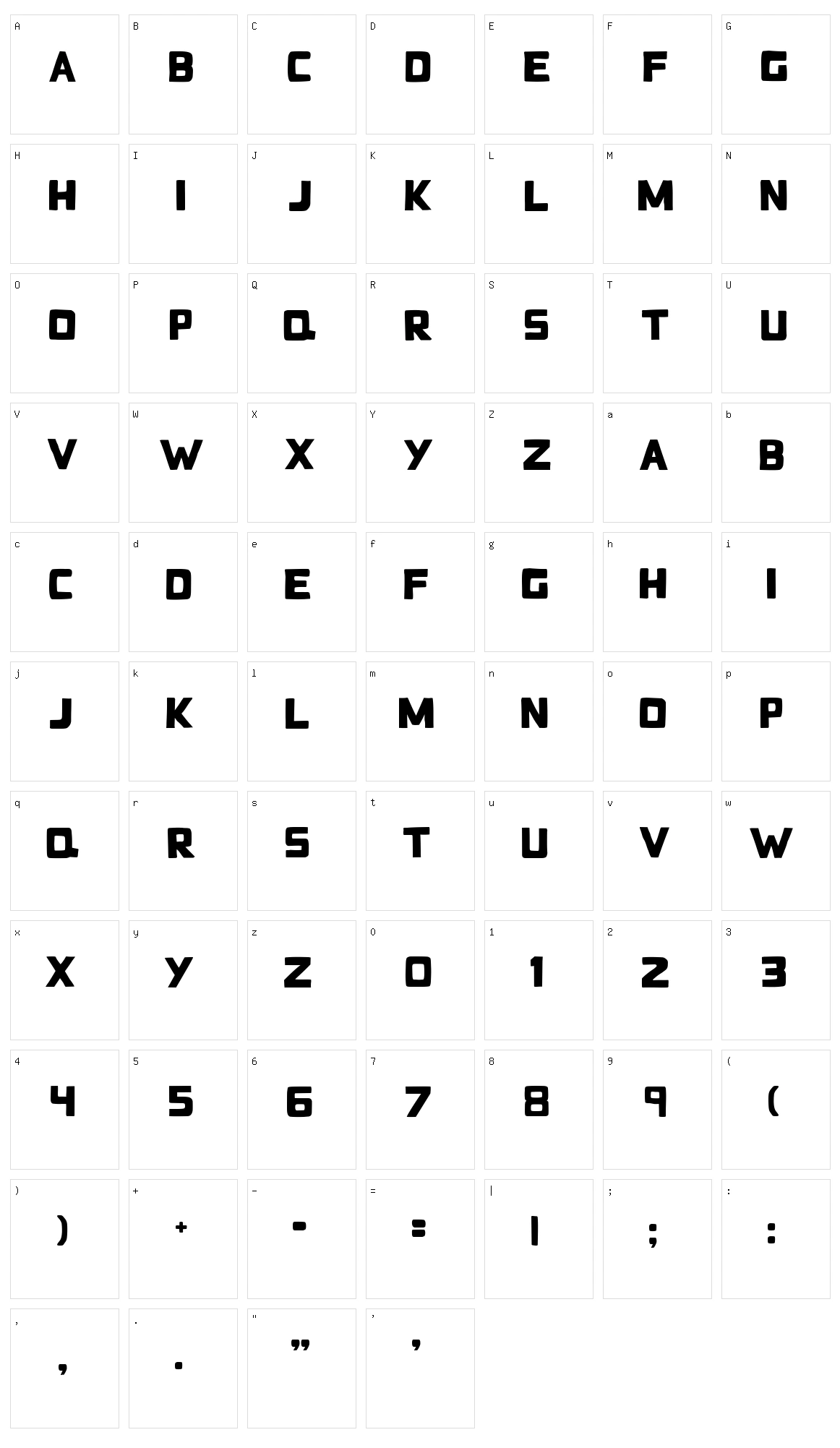
The free font Bad Blocks is carefully designed by Robert Cortez, showcasing a thoughtful balance of creativity and usability and falls under the Eroded font style. When you download the ZIP file, it contains only 12.43 KB of font files, making it lightweight and quick to download. Please review the license details below to understand permitted usage and distribution rights. If license information is not available, we recommend using this font for personal projects only or contacting the author directly for commercial usage permissions.